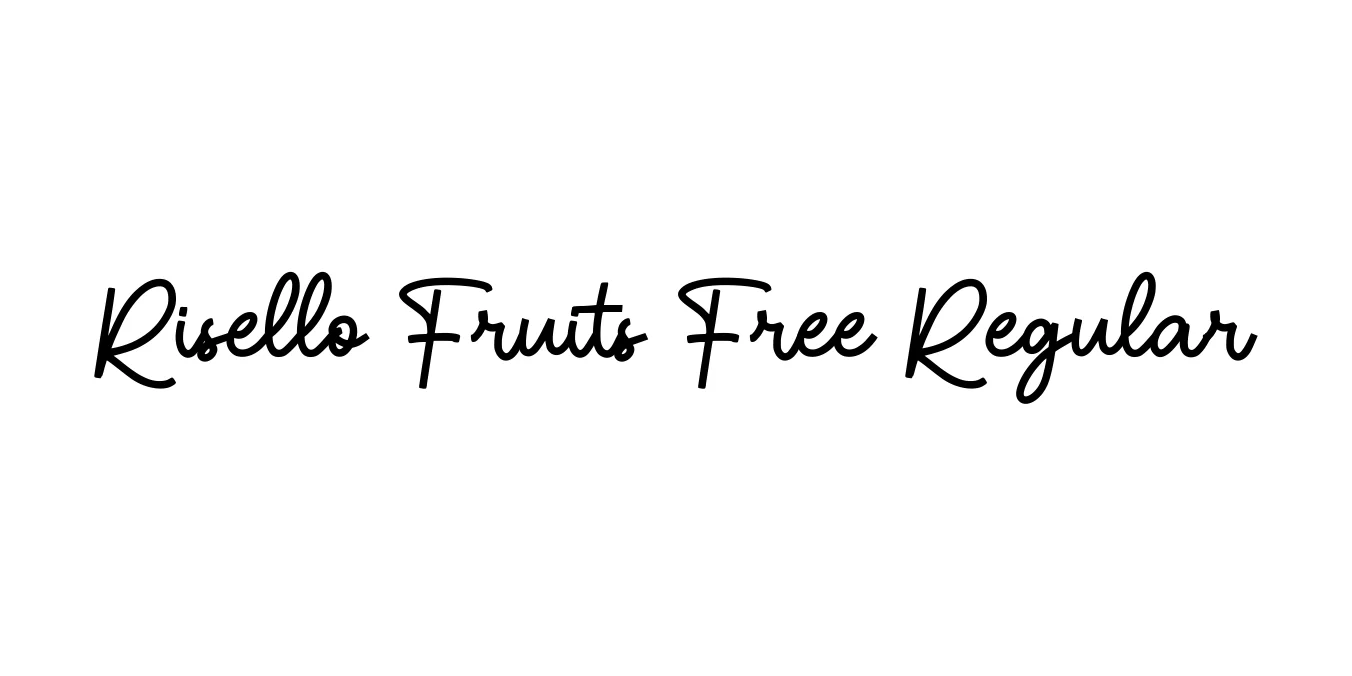
Risello Fruits Free Regular
| Font Name | Risello Fruits Free |
| Category | Script / Decorative |
Risello Fruits Free Regular is a modern and stylish script typeface designed to evoke a sense of playfulness and elegance. It features fluid, organic strokes that mimic natural handwriting, making it an excellent choice for projects requiring a personal touch. The font's rhythmic flow and clear legibility ensure it stands out in both digital and print media, providing a fresh aesthetic for contemporary designers.
Developed by Letterena Studios, this font has gained popularity within the branding and packaging industries due to its unique flair and decorative swashes. It is particularly well-suited for creative displays, social media graphics, and bespoke invitation designs. The Free Regular version serves as a versatile tool for personal creative endeavors, offering a professional look without the complexity of more industrial typefaces.
Risello Fruits Free Regular Best Uses
Ideal for creating logos for cafes, bakeries, or boutique lifestyle brands.
Perfect for eye-catching Instagram stories and Pinterest graphics.
Excellent for sweet, fruity, or organic product labels and box designs.
Adds a personal and sophisticated touch to wedding or birthday stationery.